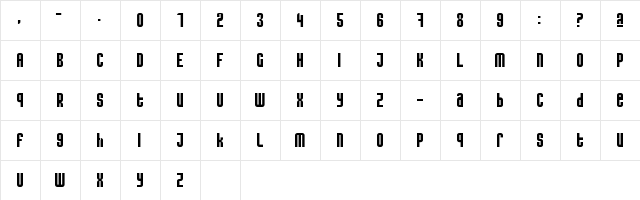
caseconected Regular
Design Context for caseconected Typeface
caseconected is a composed and adaptable typeface that performs quietly and consistently across a wide range of design contexts.